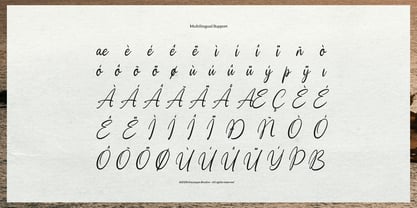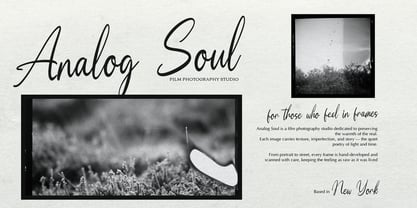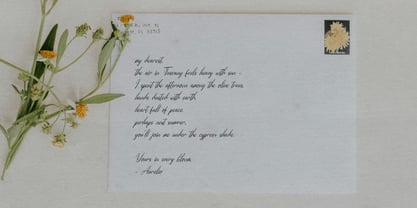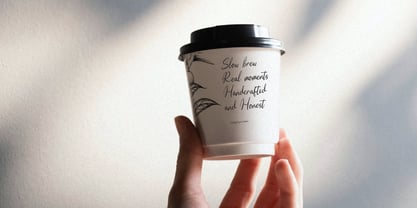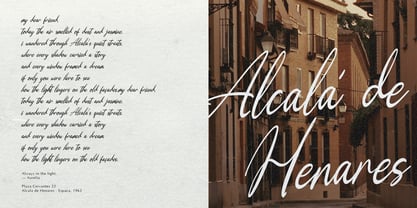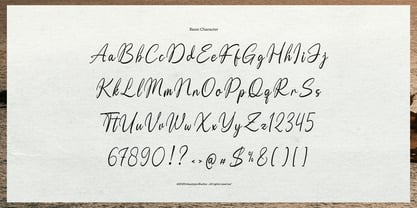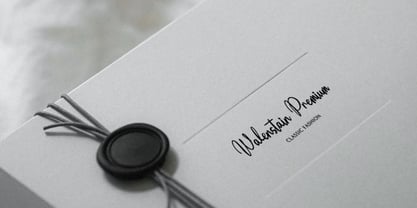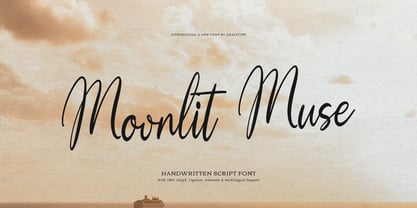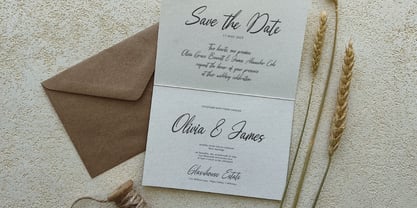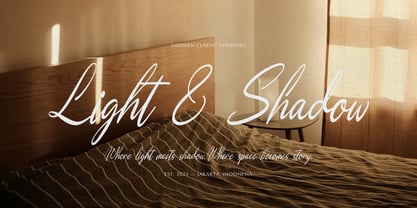
Moonlit Muse
by Tini Fitriani
The Moonlit Muse Font Family was designed by and published by Tini Fitriani. Moonlit Muse contains 2 styles and family package options. More about this family
Moonlit Muse | Handwritten Script Font, from Gracetypestudio, suitable for any projects such as: logos, branding projects, homeware designs, product packaging, mugs, quotes, posters, shopping bags, t-shirts, book covers, name card, invitation cards, greeting cards, label, photography, watermark, special events, and all your other lovely projects that need a Script taste.